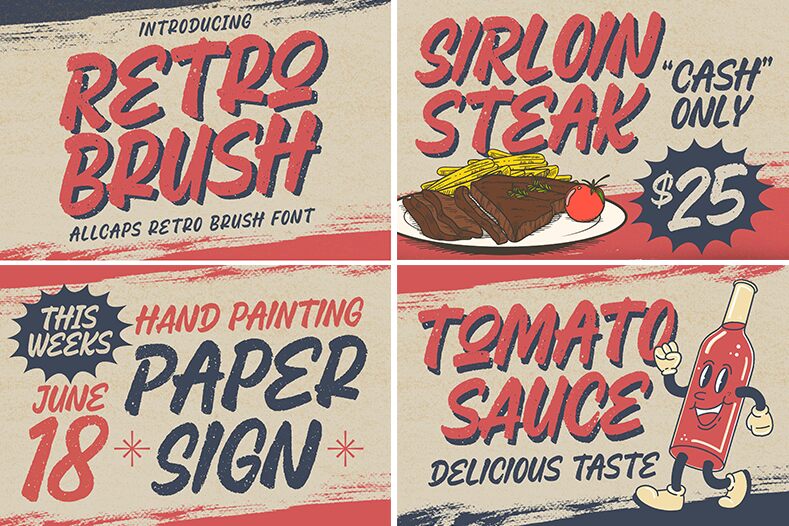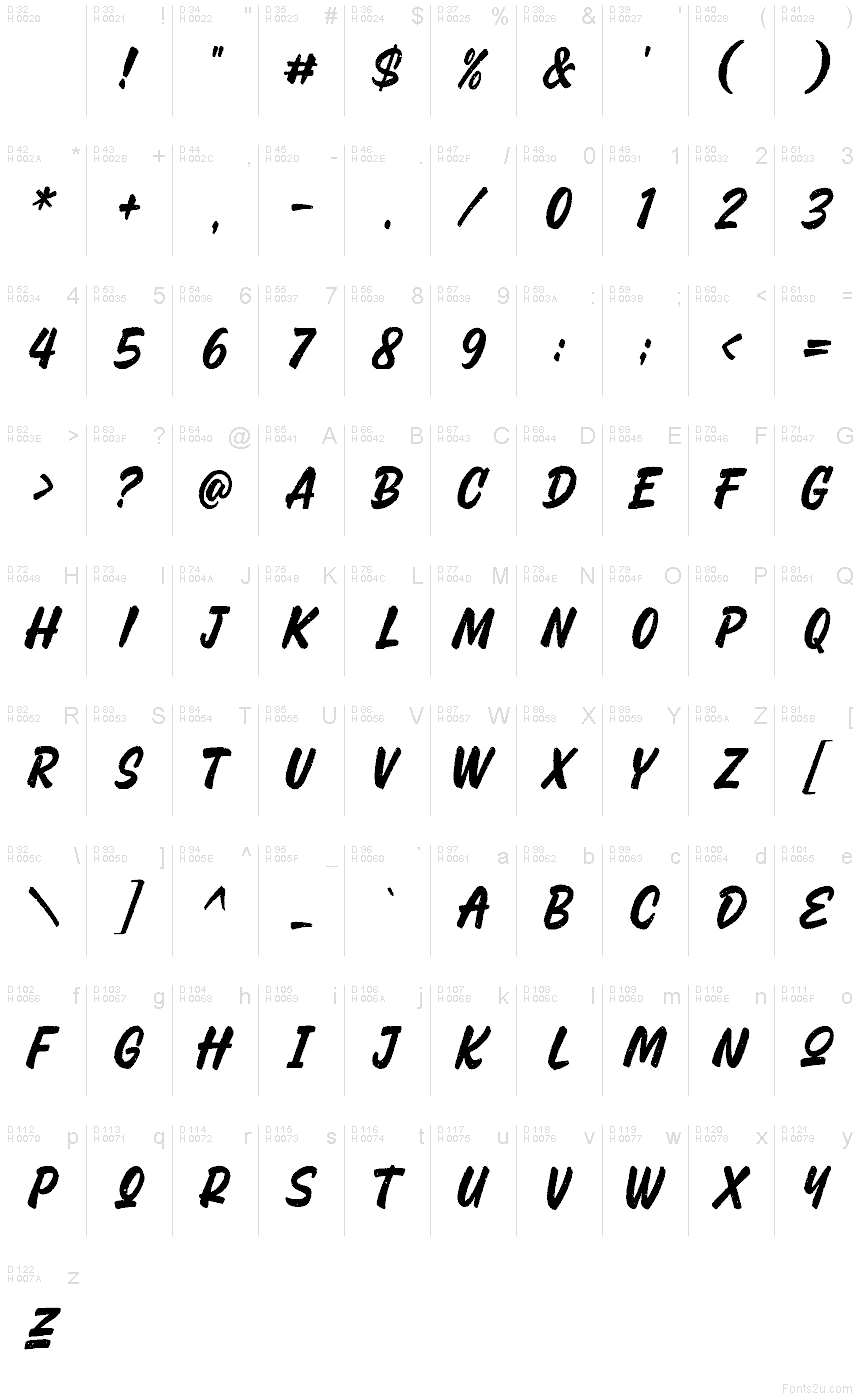
Retro Brush Regular
Retro Brush font by Blankids is a free brush script typeface. Thick, slanted strokes sweep across the line with a gritty, peppered texture that feels like real ink dragged over rough paper. The rhythm snaps and rebounds, giving every word a sign‑painter swagger—bold, fast, and slightly scruffy in the best way.
Using Retro Brush, you get instant vintage energy for posters, throwback logos, packaging, event flyers, café signage, and merch. It shines when set large with tight tracking, letting the speckled texture do the talking. Pair it with a clean geometric sans for details and captions to keep the message crisp.